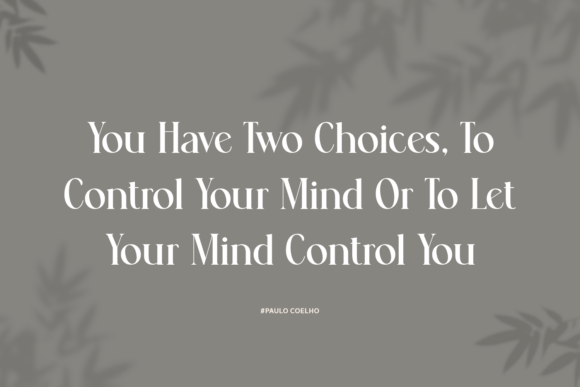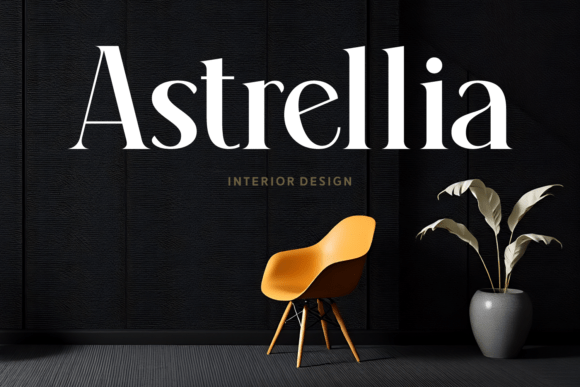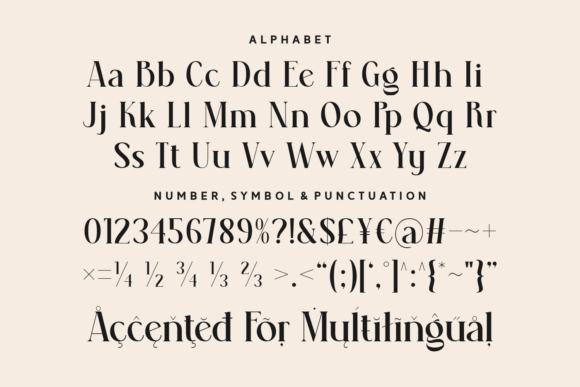
Introduction to Demiro Font
A promotional image for “Demiro,” a new elegant serif font.
The dramatic lighting and rich botanical setting create a luxurious and sophisticated atmosphere that complements the font’s classic, high-contrast design .
Key Features of Demiro Font
Why Choose Demiro Font?